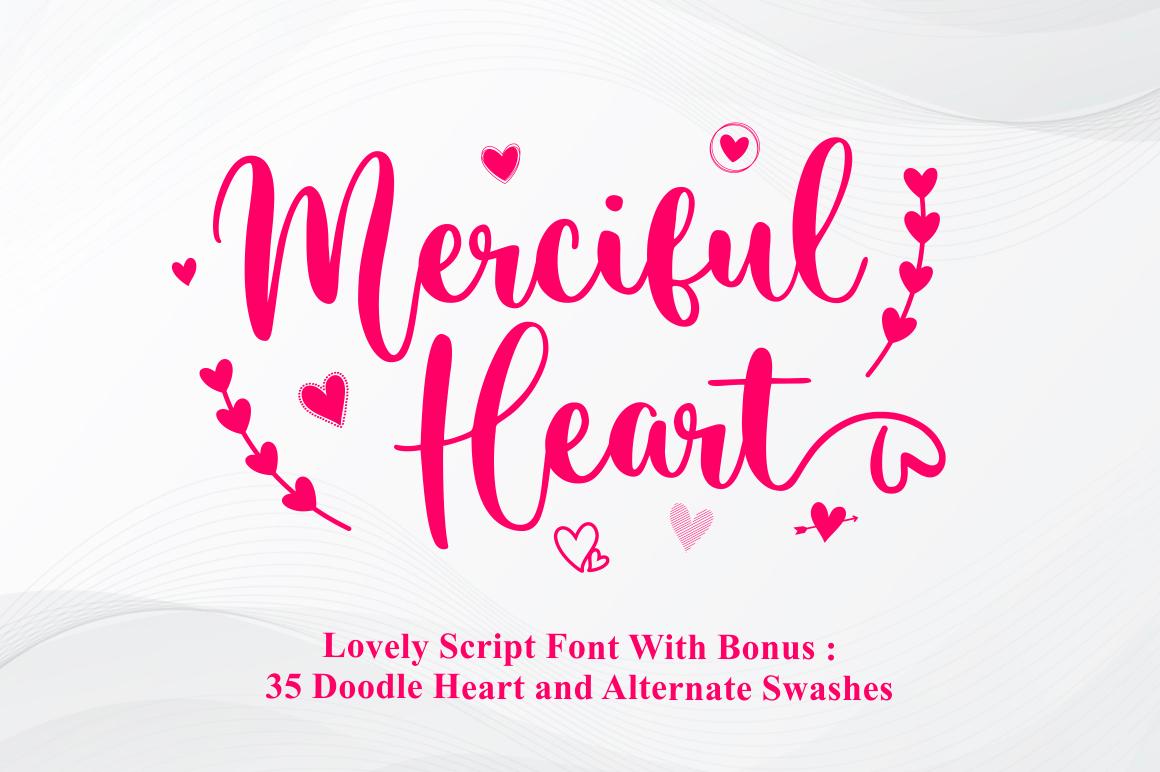
Merciful Heart Font Description
Merciful Heart is a romantic and refined script font. It is the best option for creating eye catching logos, branding and quotes. Every letter has a unique and beautiful touch, which will make your design come alive! Merciful Heart is PUA encoded which means you can access all of the glyphs and swashes with ease!